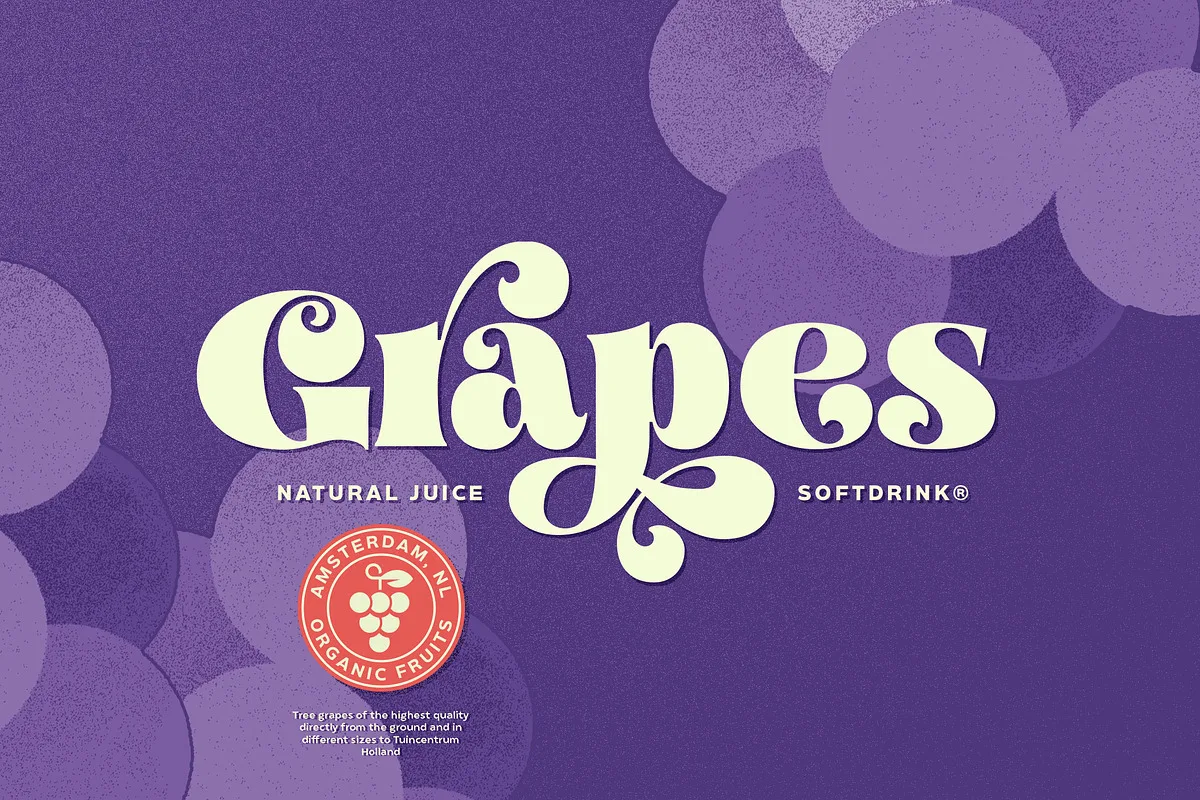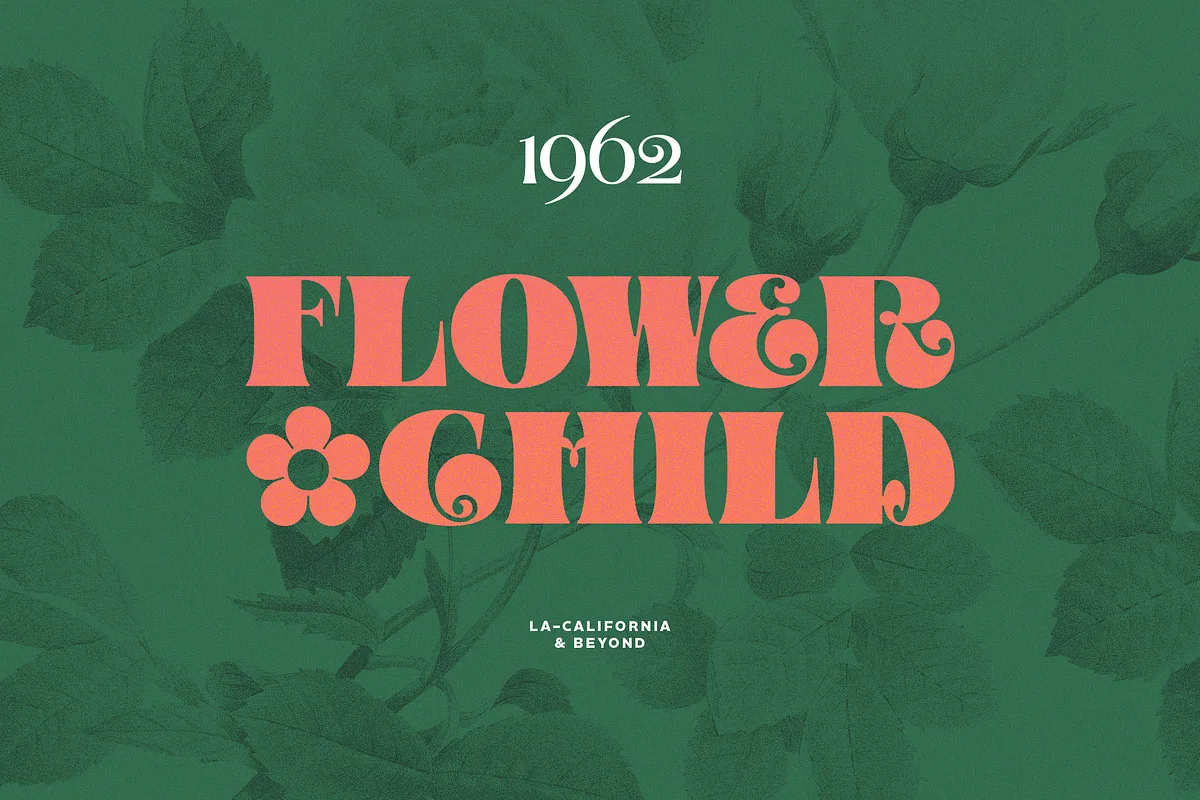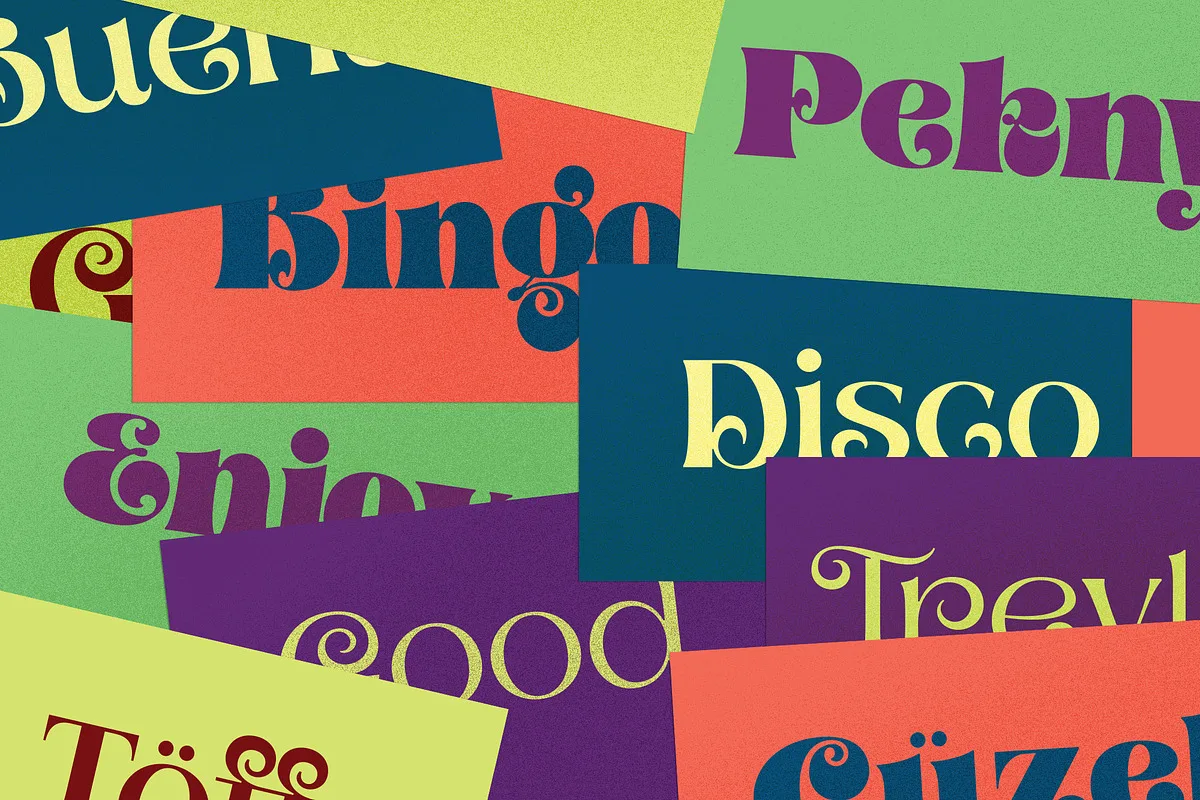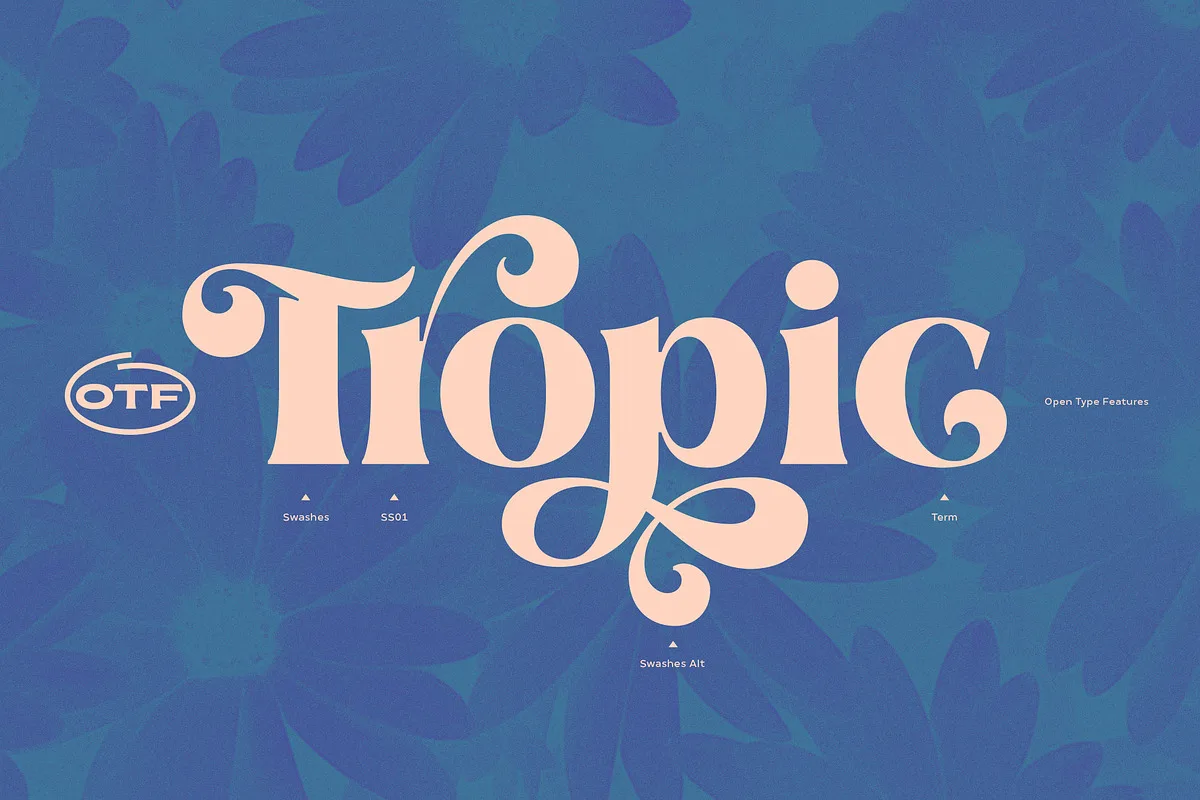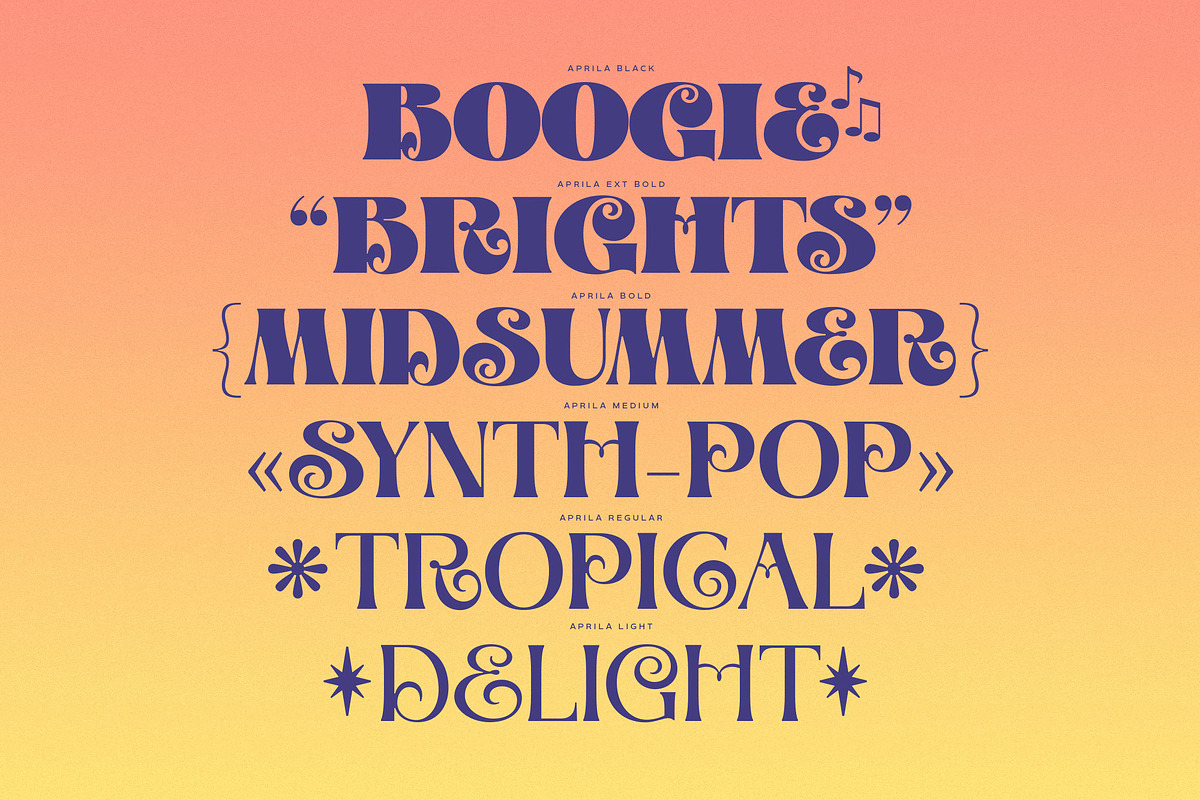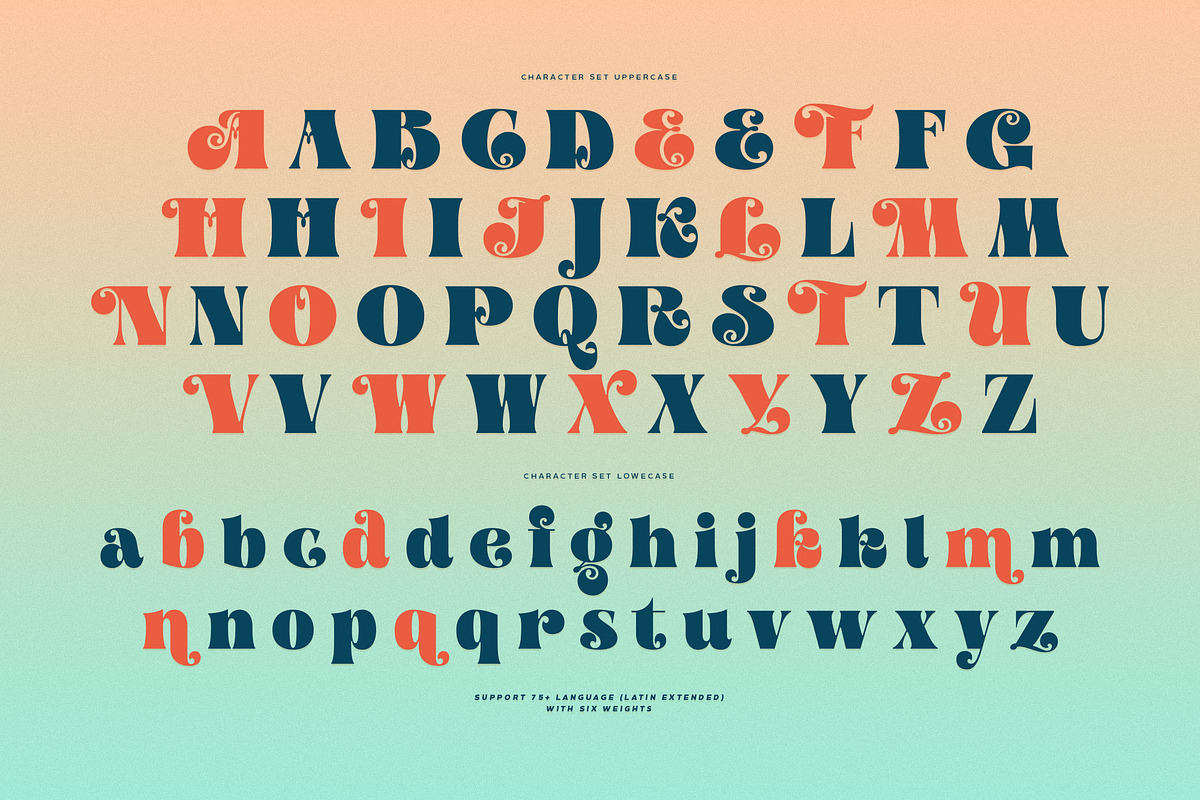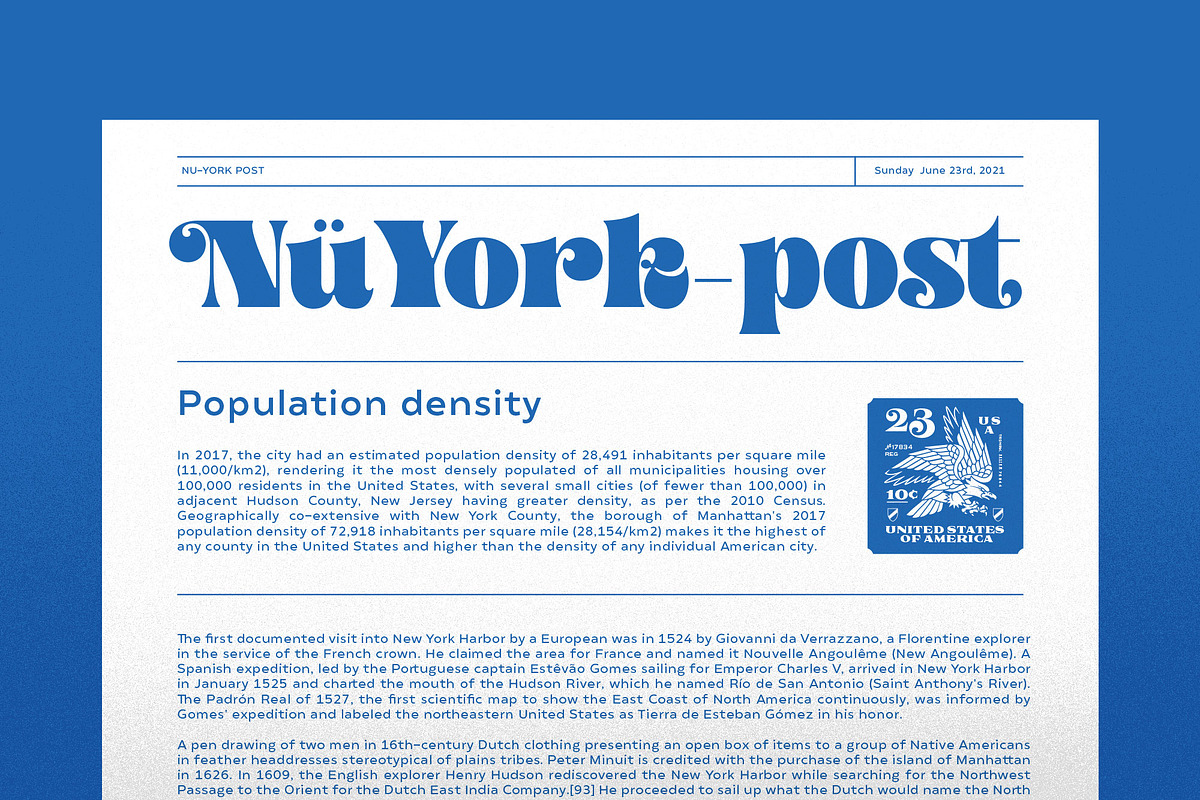
Aprila Font
Aprila is a captivating display typeface heavily inspired by the iconic 1960s Hippies Movement. It perfectly captures the psychedelic spirit of that era, transforming imaginary visions into a tangible, artistic font. Characterized by its bright, colorful, and wonderfully complex shapes, Aprila brings a bold and nostalgic retro vibe to any modern design project.
Currently, the Aprila font family is available in 6 versatile weights and offers extensive multi-language support, covering over 75+ languages (including Latin Extended characters).
Aprila font preview — sample text
Aprila font alphabet, numbers and glyphs
Aprila font style preview
Aprila font used in a design mockup